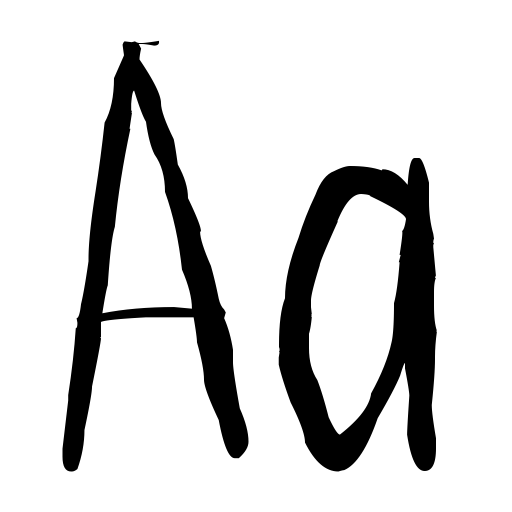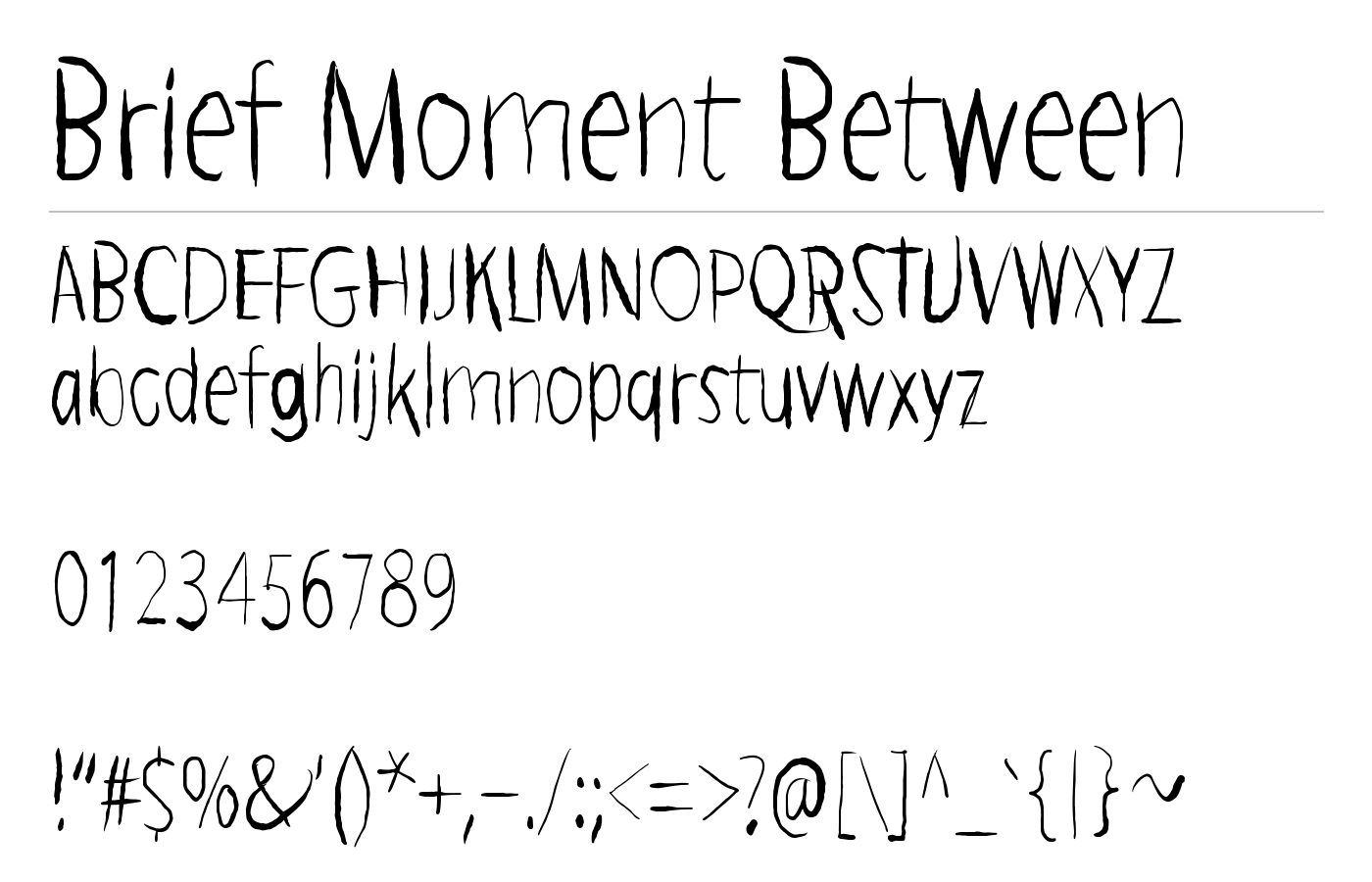
Brief Moment Between is a quirky, hand-drawn sans serif font characterized by its tall, narrow letterforms and uneven stroke weight that create a playful yet slightly eerie vibe. Its irregular lines and unique details give it a casual, organic feel, making it ideal for creative projects that seek a distinctive and personal touch. This font works well for headlines, posters, and branding that aims to stand out with an artistic, unconventional style.
Brief Moment Between Font